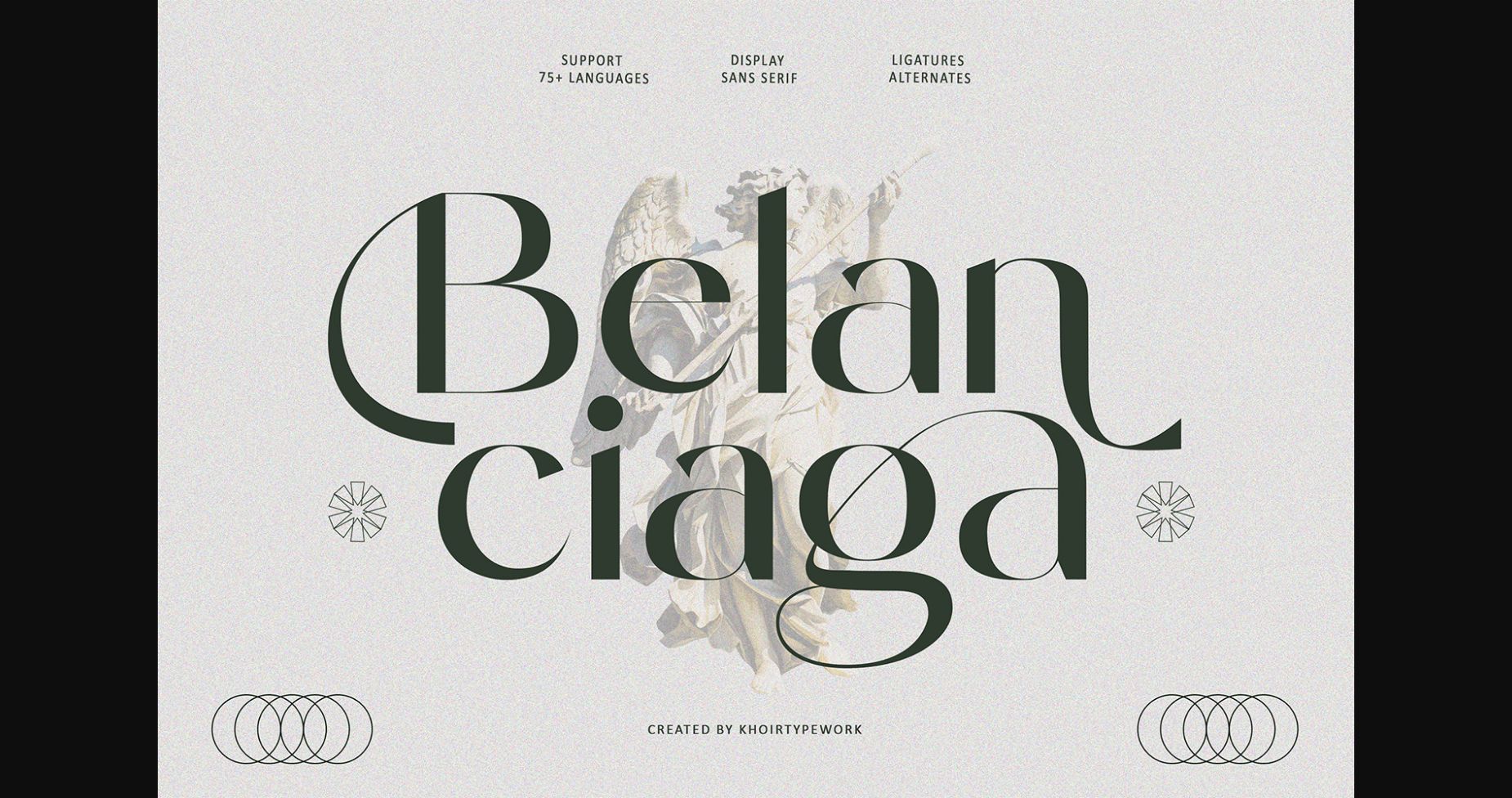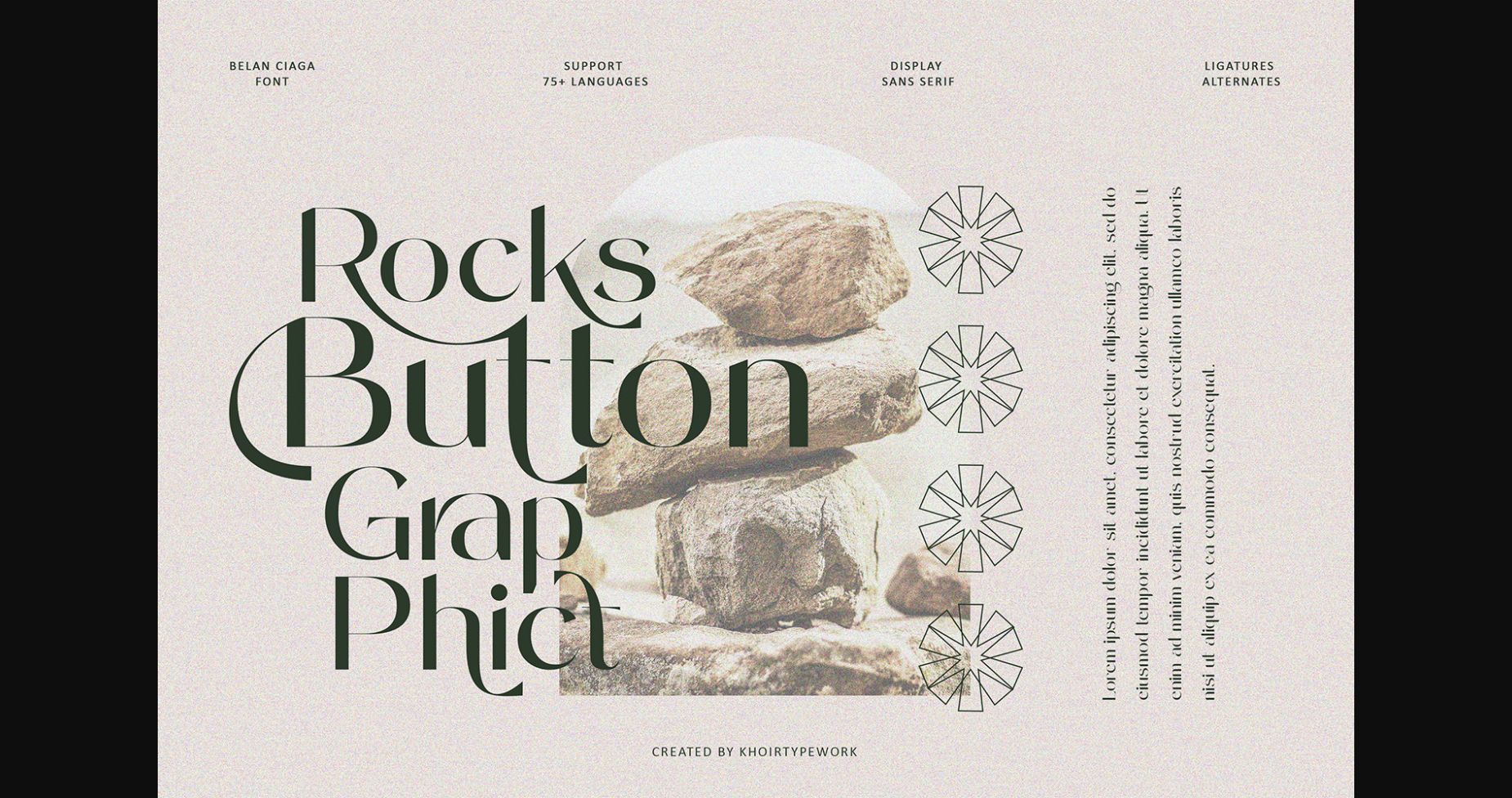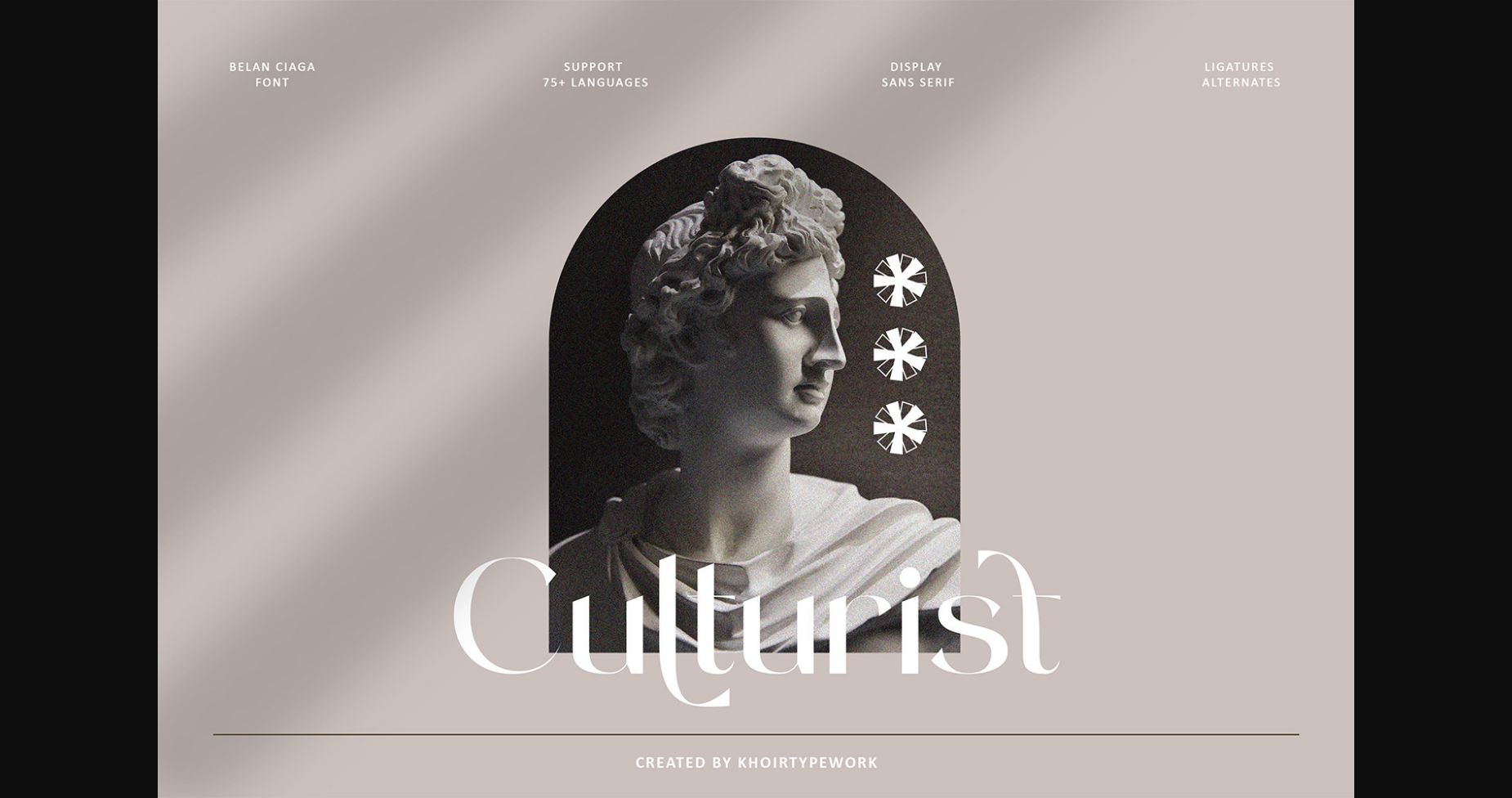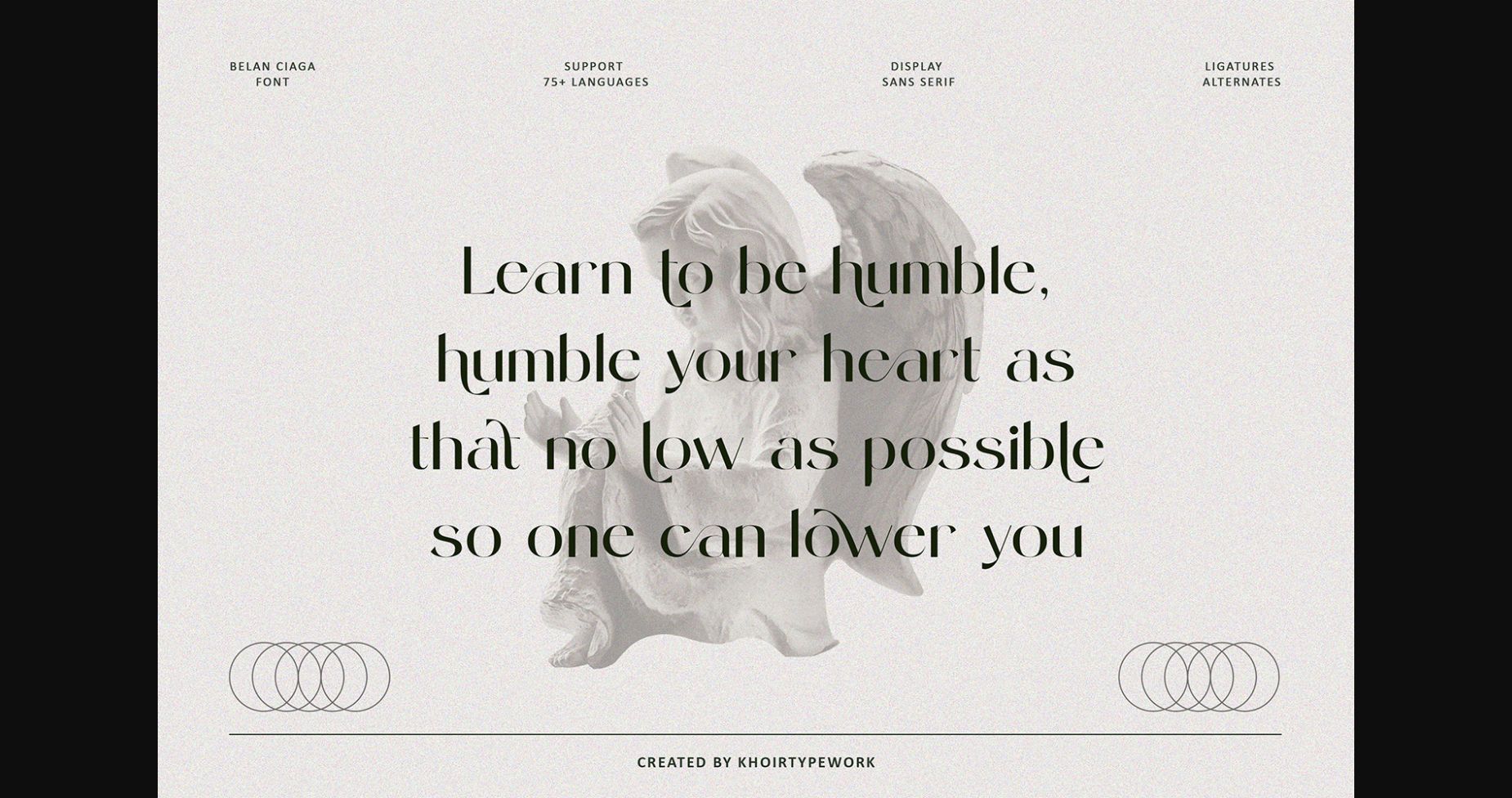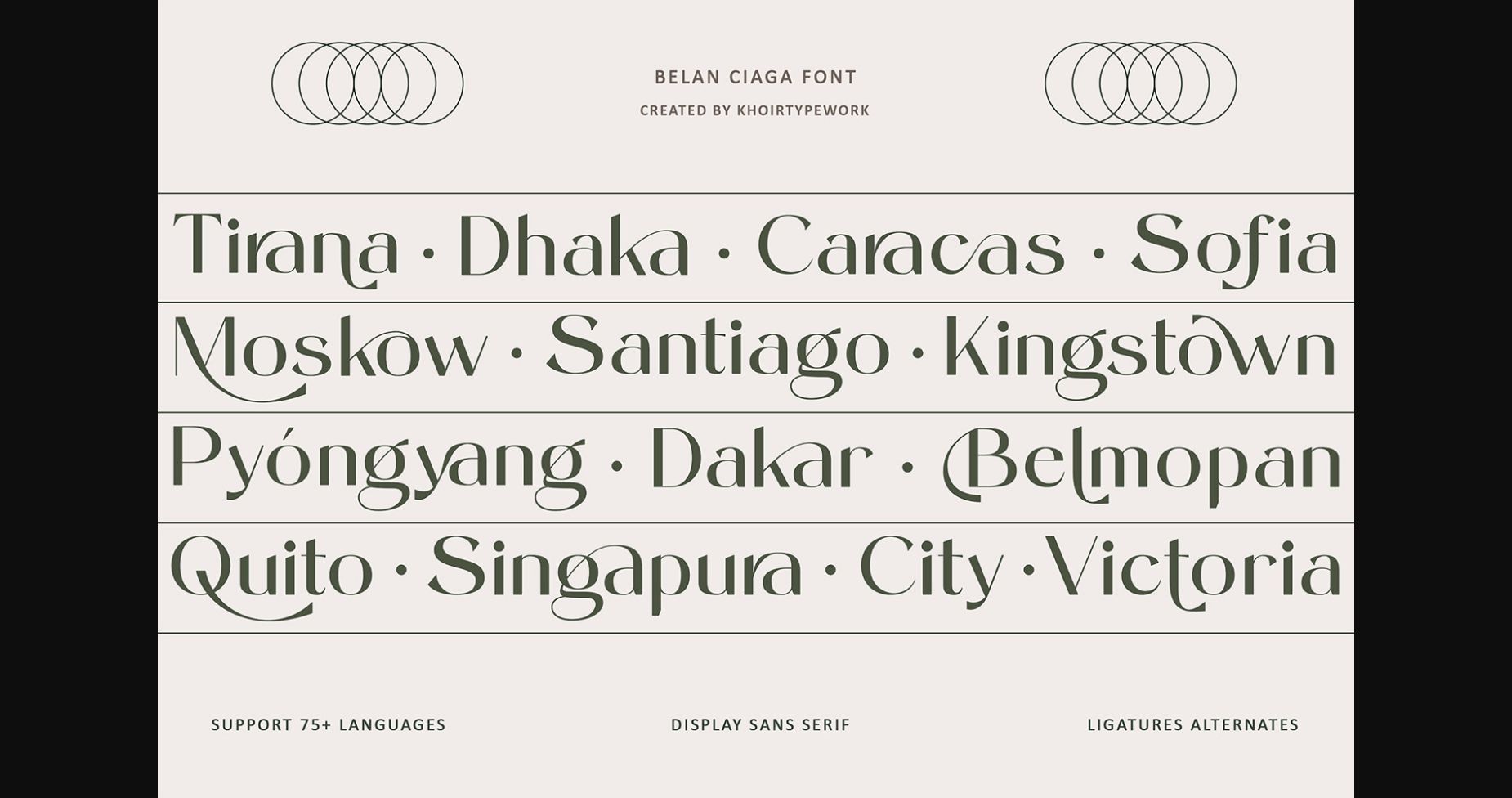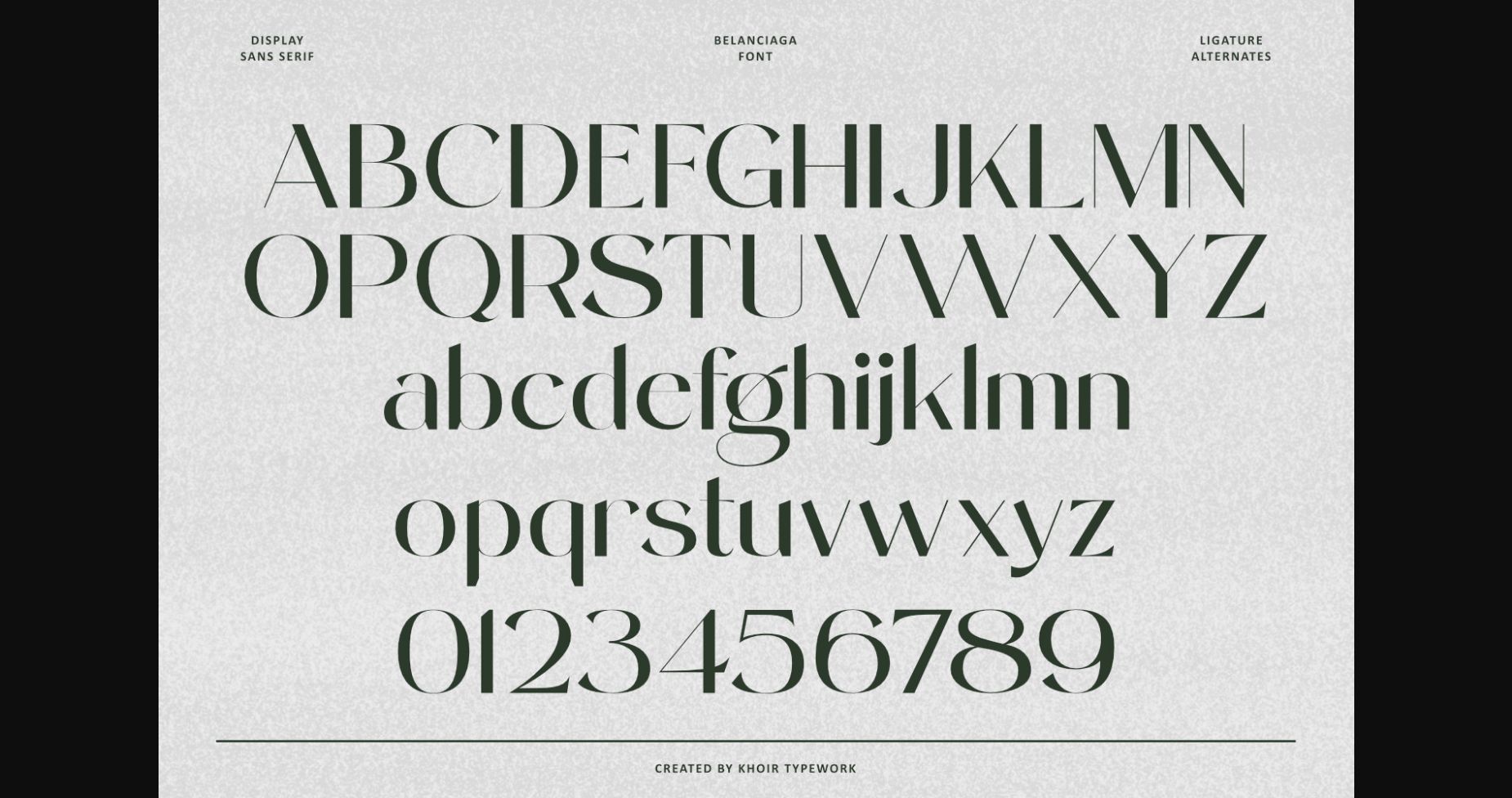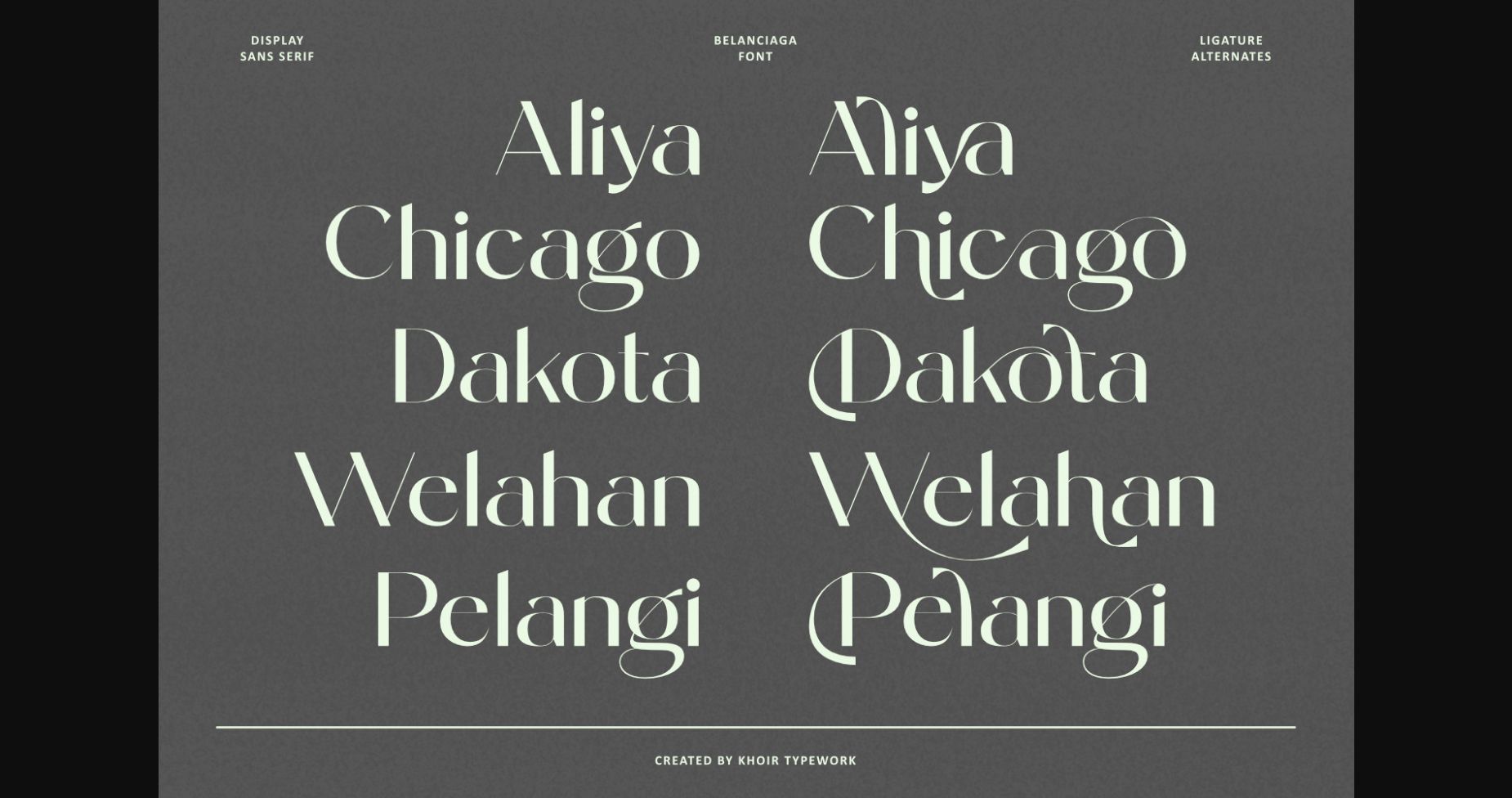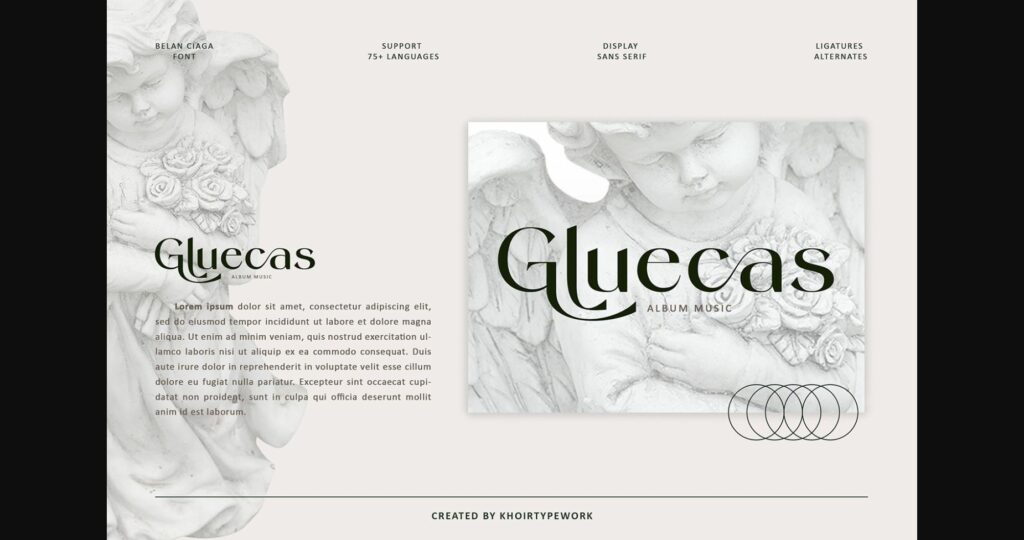
HomeSans Serif FontsBelanciaga Font Sans Serif Fonts Belanciaga Font FacebookXPinterestWhatsApp 1 of 11 ... Belanciaga Font Poster 2... Belanciaga Font Poster 3... Belanciaga Font Poster 4... Belanciaga Font Poster 5... Belanciaga Font Poster 6... Belanciaga Font Poster 7... Belanciaga Font Poster 8... Belanciaga Font Poster 9... Belanciaga Font Poster 10... Belanciaga Font Poster 11... About Belanciaga Font Belanciaga is a stylish and elegant sans serif font. It maintains its classy calligraphic influences while feeling contemporary and fresh. Fall in love with it and bring your projects to the highest levels! DOWNLOAD NOW People also explored Yellow Perforated Herliya Font Bambizzle Font Winter Font Pocket Serif Dear Santa Font Redberries Font Rokey Font Hogira Font 308 0 TagsBelanciaga Font Previous articleFeragie FontNext articleKiwi Font LEAVE A REPLY Cancel reply Comment: Please enter your comment! Name:* Please enter your name here Email:* You have entered an incorrect email address! Please enter your email address here Website: Save my name, email, and website in this browser for the next time I comment. Personal Use Free Shawaki Personal Use Free Read more about this font Manhattan Personal Use Free Read more about this font My Ugly Handwritting Personal Use Free Read more about this font Callisa Script Personal Use Free Read more about this font BLOG How to Cut Any Font on Cricut: Convert a Font to SVG (Free) Turn any font into a clean SVG so it cuts crisp on Cricut - a quick 3-step workflow using a free font-to-SVG tool. 5 Fonts That Will Dominate Design Trends in 2026 Transform Your Website: Elevate Your Typography with 7 Best Web Font Generators To increase your work productivity, choose the most readable fonts.